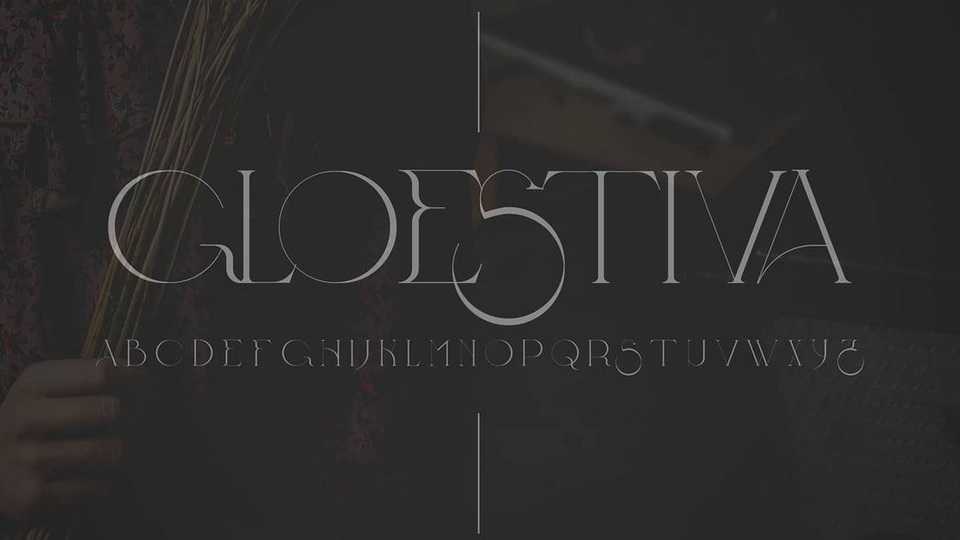
Download Gloestiva font, a luxury and elegant display serif typeface. With its light and delicate shapes, Gloestiva font is perfect for branding and editorial use.
Designer: Gesang K. Khoiron